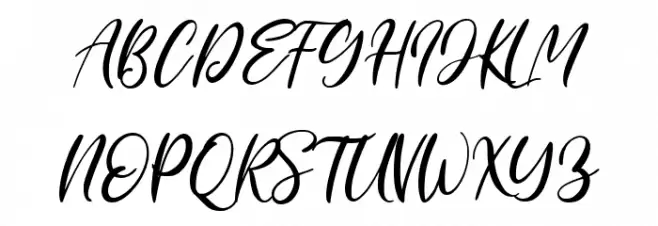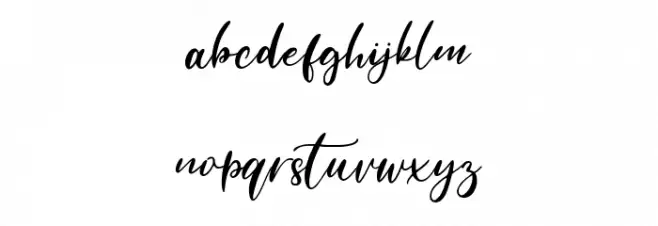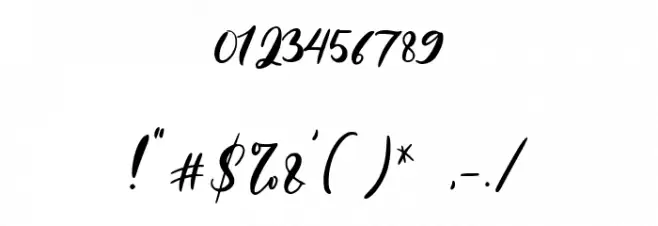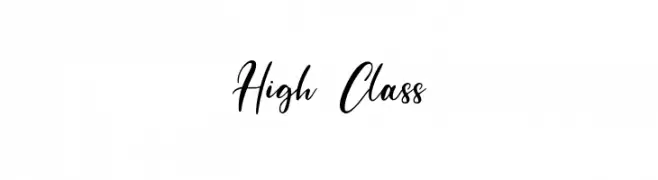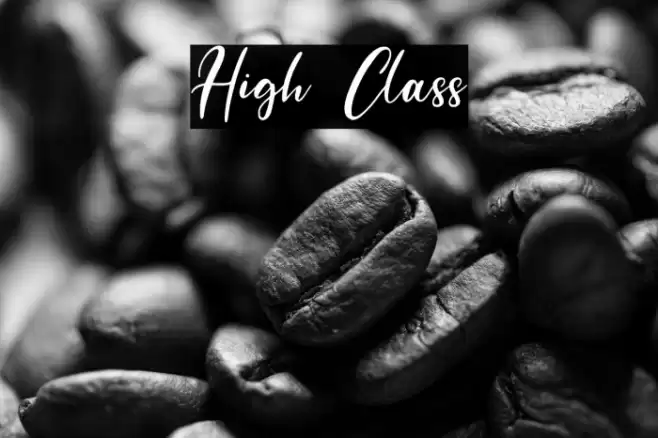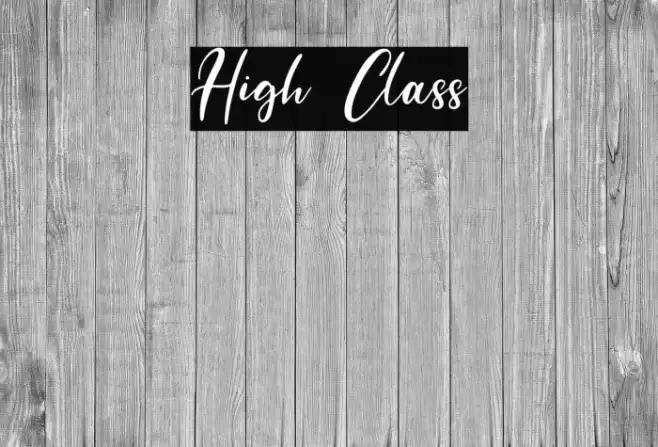
High Class
This elegant script font exudes sophistication and fluidity, characterized by its flowing, cursive strokes and graceful curves. The uppercase letters are bold and sweeping, while the lowercase letters maintain a delicate balance with their refined loops and tails. The numerals are stylishly integrated, complementing the overall aesthetic. Special characters are thoughtfully designed, enhancing the font's versatility. This typeface is perfect for projects that require a touch of elegance and class, such as wedding invitations, branding, and upscale packaging.
An elegant script font with flowing, cursive strokes and graceful curves.
- Proposed Projects: Ideal for wedding invitations, luxury branding, elegant packaging, and high-end event materials.
- Category: Script
- Overall Style: Elegant, Sophisticated
- Use Case: Logos, Invitations, Branding